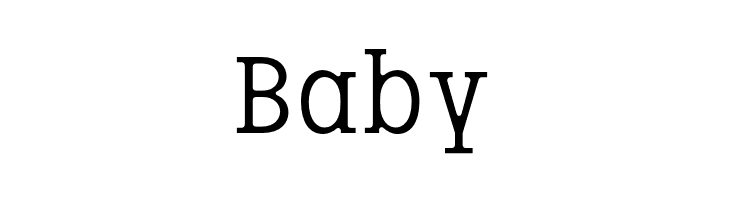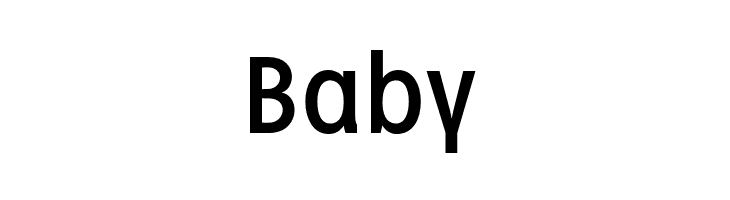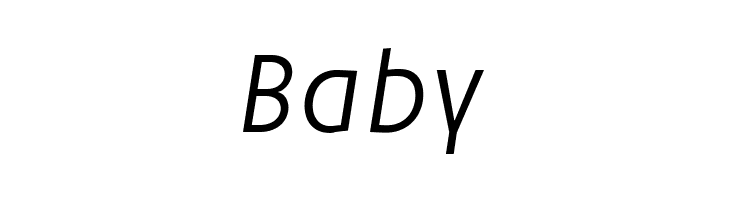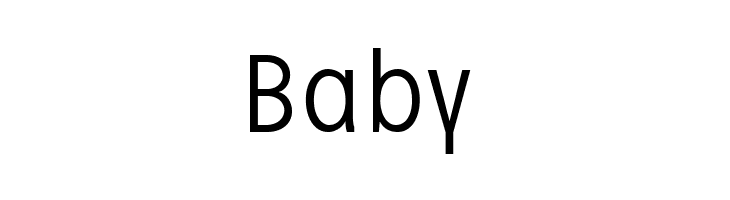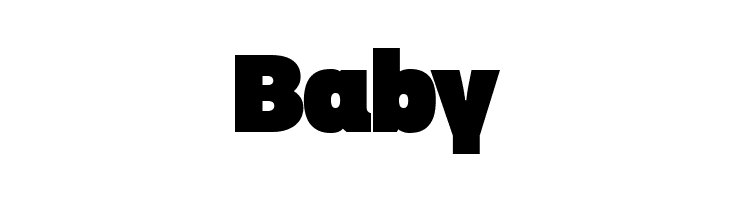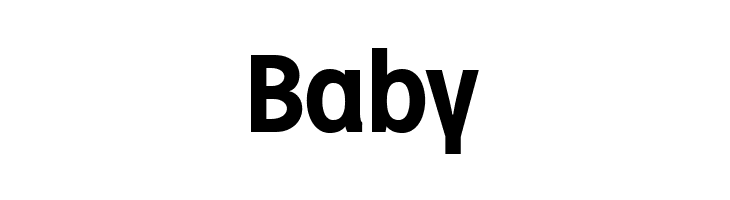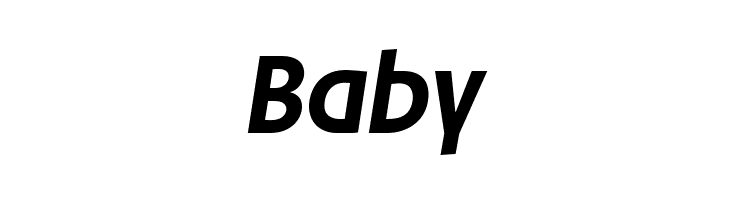
A bold, geometric typeface with clean lines and a modern aesthetic.
Bold, italicized font with a modern and dynamic style.
A clean, modern sans-serif font with low contrast and rounded edges.
A sleek, modern, light italic font with medium contrast and smooth strokes.
A sleek, modern italic font with clean lines and medium contrast.
A bold, modern font with thick, uniform strokes and tight spacing.
A classic serif font with elegant, well-defined characters and slight stroke contrast.
A modern, clean sans-serif font with balanced proportions and excellent readability.
A modern, italic font with clean lines and consistent stroke width.
A modern sans-serif italic font with clean lines and a dynamic style.